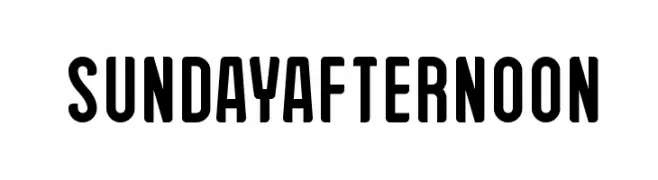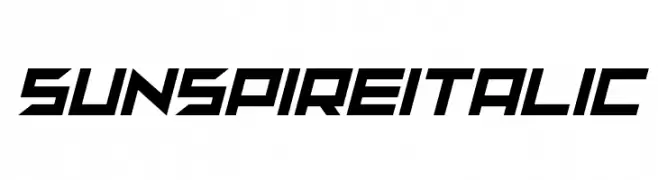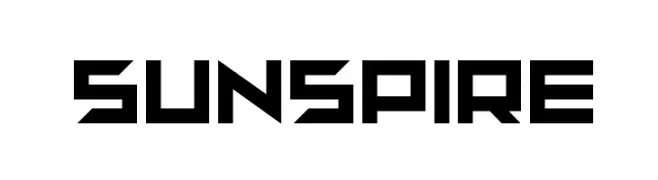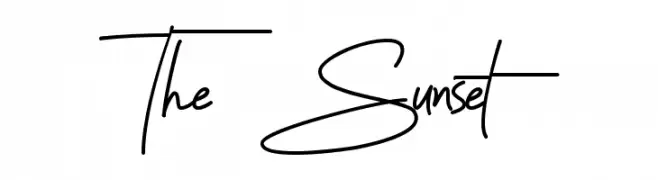
( Betwixt Designs - betwixtdesigns.com )
A flowing, cursive font with elegant curves and a handwritten aesthetic.
( Chequered Ink - chequered.ink/ )
A bold, modern typeface with geometric letterforms and strong visual impact.
( Chequered Ink - chequered.ink/ )
A bold, rounded sans-serif font with a modern and approachable style.
( Darrell Flood )
A bold, geometric font with a futuristic, angular design.
( Darrell Flood )
A bold, italicized font with a modern, angular design.
( Debut Studio - Ari Fadli - creativemarket.com/debutstudio )
A bold and expressive brush font with a hand-painted, artistic style.
( George J Fox )
A bold, geometric font with a modern, industrial style and tight character spacing.
( Graphix Line Studio )
A graceful, handwritten script font with a flowing, elegant style.
( Hanoded - David Kerkhoff - www.hanodedfonts.com )
A dynamic and expressive handwritten font with energetic strokes.
( Java Pep )
A smooth, flowing script font with elegant, connected characters.